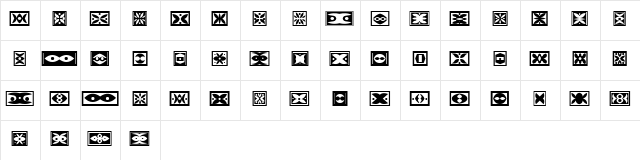
Ornament Borders Regular
Design Context for Ornament Borders Typeface
Ornament Borders is built around its visual character rather than neutral utility — its distinctive forms are designed to make an impression at display sizes.
Font Pairing: Pair with a clean neutral sans-serif for body copy to let Ornament Borders's character lead without overwhelming the composition.
Pro Tip: Use Ornament Borders exclusively at display sizes — it was designed to be seen, not read at length. Let a neutral companion handle body copy.